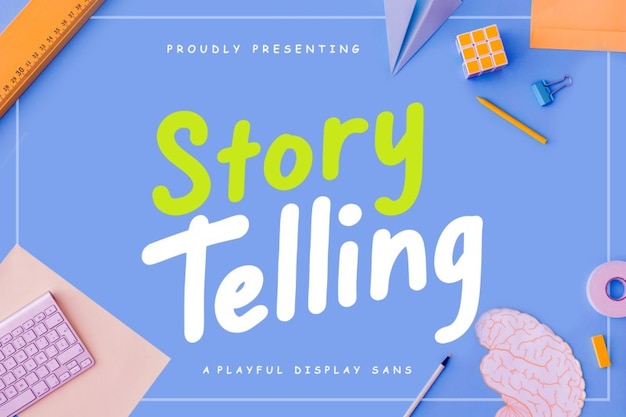
Story Telling Font
"Story Telling" is a font that breathes life into your words. Its bold, rounded letters are like characters in a playful narrative, dancing across the page. Whether it's for a children's book, a whimsical logo, or a creative project, this font weaves the tale with every stroke. It's the storyteller's secret weapon, making your words as captivating as the stories they tell.